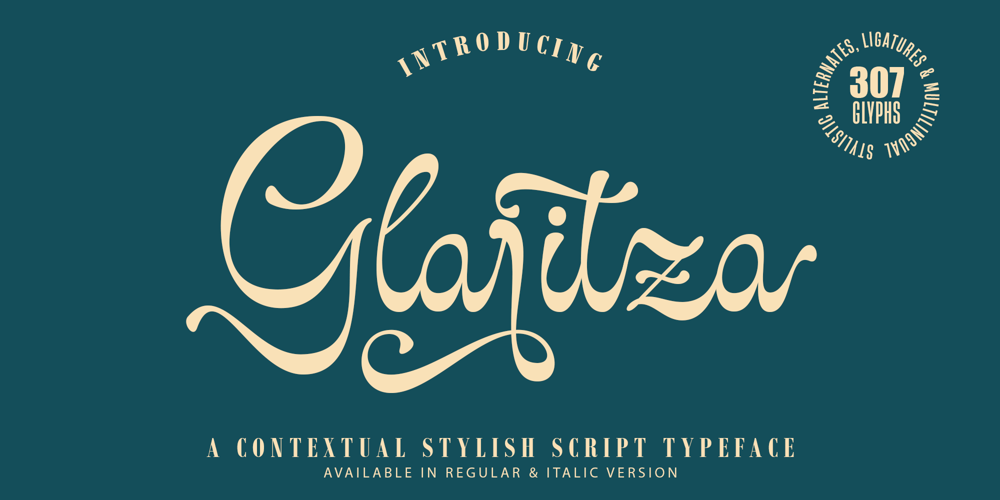
Glaritza Script Font Family was designed by Zikrillah and published by Suza Studio. Glaritza Script contains 2 styles and family package options. Introducing – Glaritza Script Font By Suza StudioGlaritza Script is a classic script font with rounded edges and a modern and unique look. Glaritza Script comes with 307 Glyphs, Contextual Alternative, ligatures, and also multilingual support.Glaritza Script is perfect for product packaging, branding projects, megazines, social media, weddings, Logo Design or simply used to express words in the background.Thank you, Enjoy It.